25+ Best Anime Subtitle Font Ideas in 2025
Animes offer some gorgeous visuals and are emotionally charged visuals of storylines which include stunning anime text fonts too. Whether it’s the bold energy of shōnen battle titles or the soft curves of a slice-of-life opening, Japanese anime subtitle fonts carry the essence of the genre. They communicate emotion before a single word is read.
In 2025, creators, editors, and fans are looking for subtitle fonts that depict Japanese font aesthetics and also balance legibility for video subtitles, captions, or manga dialogue. This guide explores over 25 best anime subtitle fonts for videos and manga.
1. ACME Secret Agent
As its name suggests; this sans font gives a secret and thrilling feel to your anime text. It is suitable for all your action and adventure webtoons subtitles. The clear yet fun typeface is easy on the eyes when reading long subtitle texts.
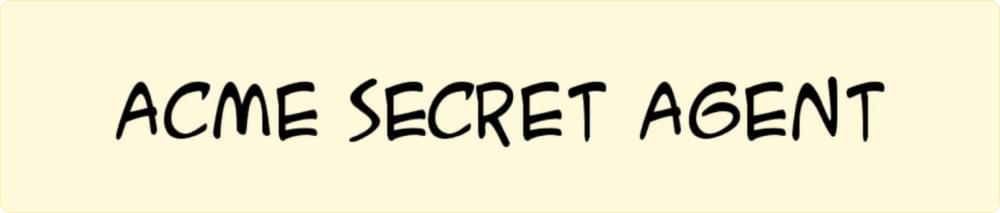
2. Aladin
Aladin is SubtitleBee’s sans font that gives a magical, storybook aura of fantasy anime. It offers soft curves and classic rhythm to your anime text font. The styled letterforms are easy to read and match the every magic of anime story.
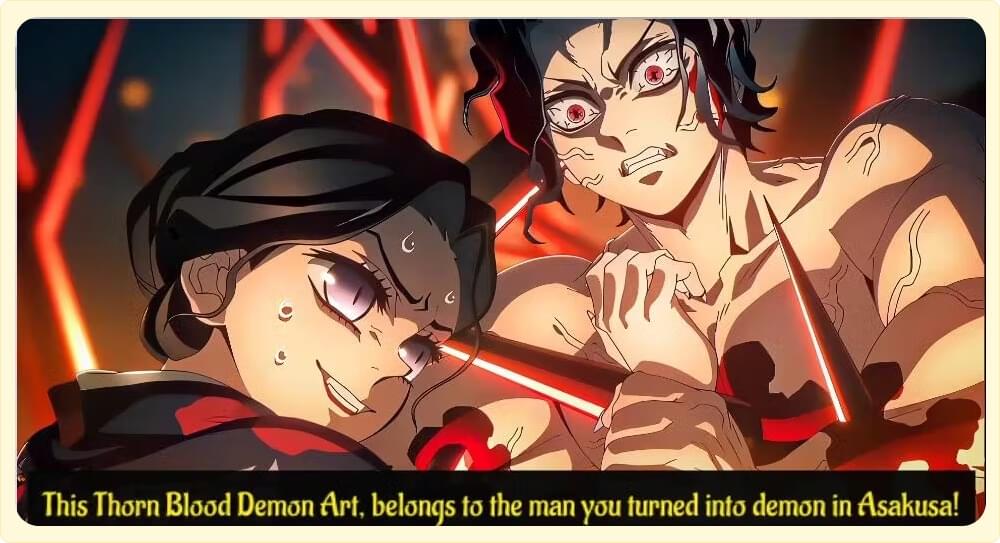
3. Action Man
Action Man is the best anime subtitle font for action scenes and anime titles due to its bold and dynamic look. It has well-spaced letters and is comfortable to read even in longer anime subtitles.
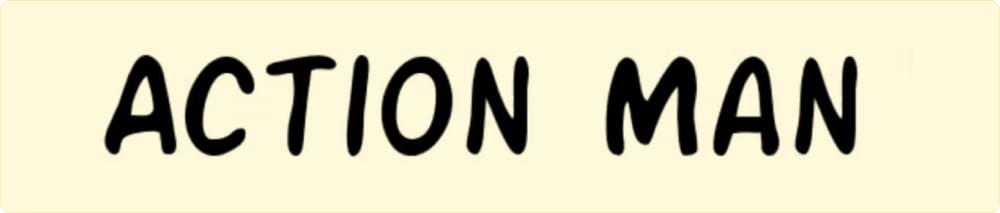
4. Ames
Ames is one of the best anime subtitle fonts out there. It is a clean and comic font with smooth curves and a friendly rhythm that feels right at home in anime subtitles and other texts. It keeps text readable while still adding a subtle hand-drawn charm.
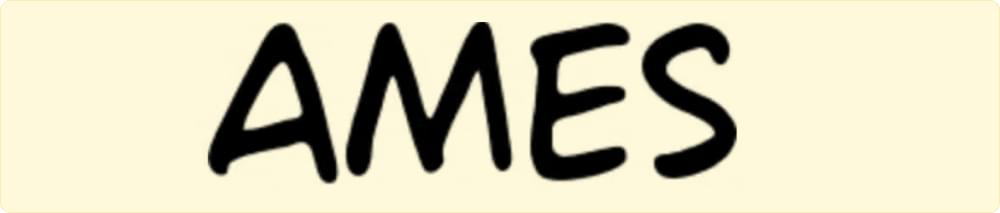
5. Anime Ace
Anime Ace BB is a popular comic-style anime text font widely used in manga and anime subtitles. This is a rounded, clear lettering anime text font that gives dialogue a classic anime look and is also easy to read.
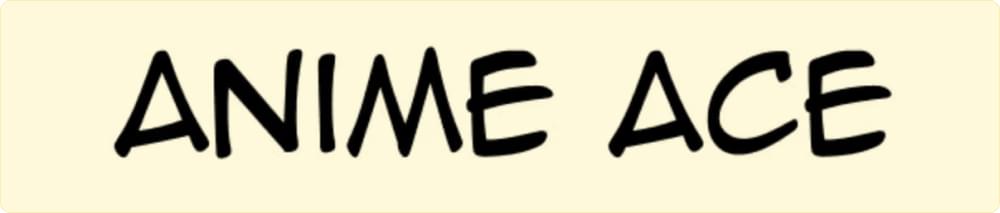
6. Anime Kids
A fun, decorative font with playful characters inspired by classic anime styling. Best used as an anime text font for kids’s anime subtitles and playful titles.
7. Badaboom
Badaboom BB is a very unconventional and fun anime text font and it is best for comedy scenes and fun titles or text. Badaboom typeface has chunky letter that are best for anime titles, pop-up dialogues and short subtitles.
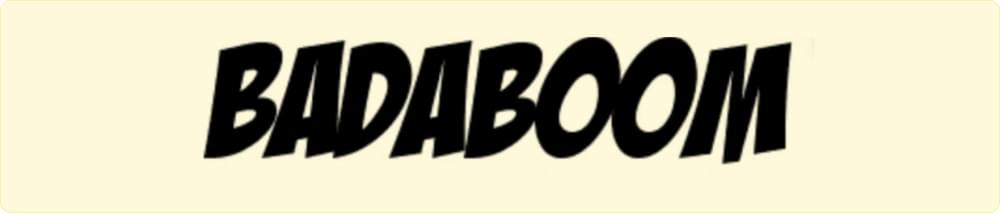
8. Big Shout Bob
Big Shout Bob has very bold and eye-catching letterforms with a fun mix of upper and lowercase characters. This energetic typeface makes anime subtitle text look more playful and helps your video more fun with a lively visual punch.
9. Chubby Dotty Font
A bubbly, rounded font filled with playful dotted accents offers mini versions of capital letters with dots. It brings a cute and cheerful look, perfect for kids’ anime themes, chibi-style edits, or fun title graphics. Best used as an anime subtitle font for short phrases.
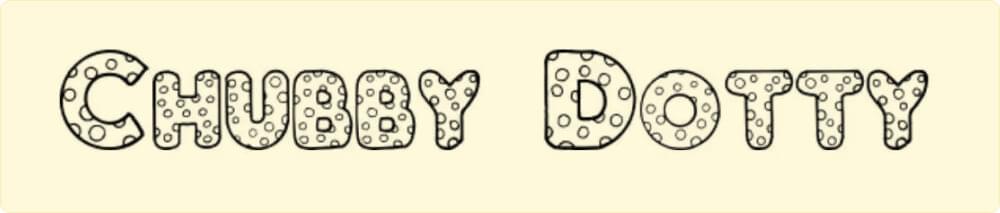
10. Comic Book
Comic Book font is an all-caps, classic anime subtitle font that has been used in comics for years. It is not a very styled font and is easy to read. Its simplicity makes dialogues and narrative text easy to read.
11. Comic Chuck
Comic Chuck is a bold and thick and all-caps font that works well for titles and dialogue. It has a vintage feel, making it suitable for historical or retro-themed webtoons.
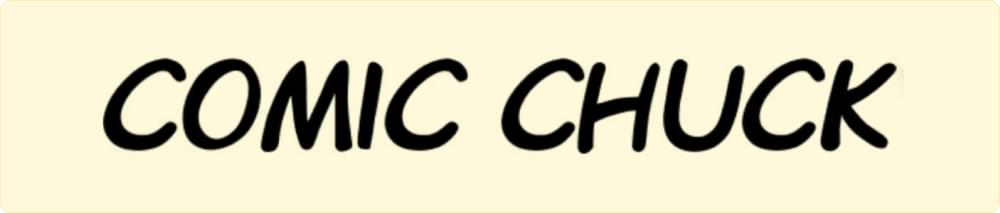
12. Courgette
Courgette is a flowing, semi-cursive san subtitle font. It offers smooth, brush-style curves and a handwritten personality for your anime text. Courgette offers strong readability even at smaller sizes.
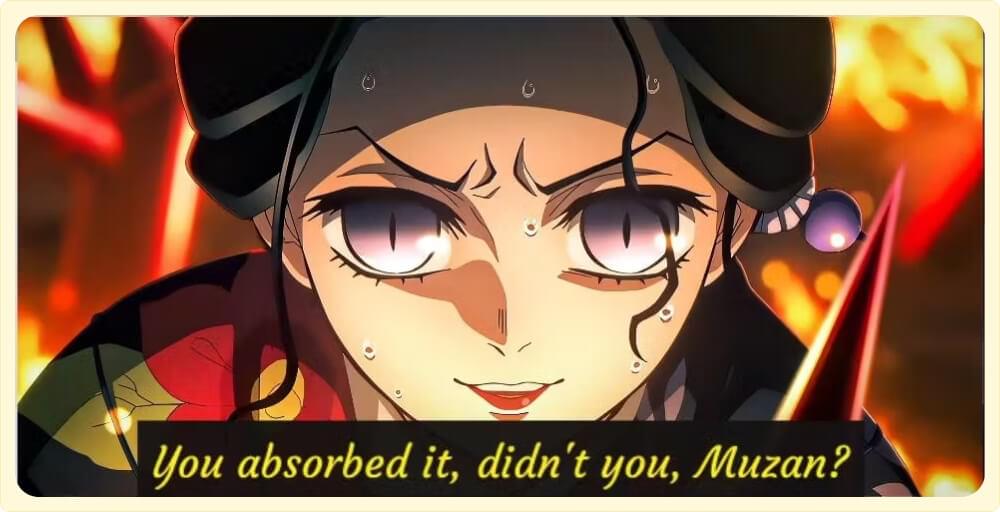
13. Evangelion
Inspired by the classic Anime series, Neon Genisis Evangelion, this anime text font offers big and bold letters that are tightly packed. This condensed look of chunky letterforms can make your titles look much more stylish and unique.
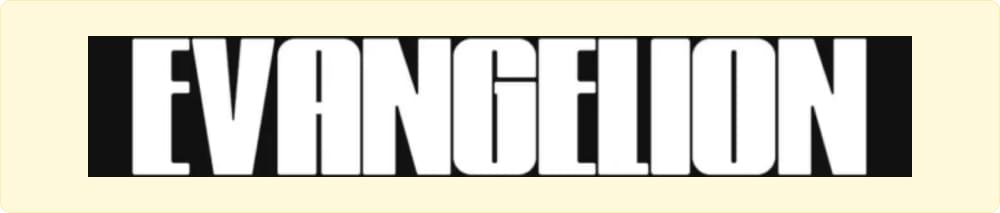
14. Frogy Toons
A playful cartoon-style font with rounded shapes and a bouncy personality. It’s great for kid-friendly anime edits, chibi animations, and cheerful title graphics. It adds a fun and animated feel to your text overlays. Frogy Toons is best used as an anime text font rather than subtitles, since its chunky style can make long dialogue harder to read.
15. Funicorn
Funicorn is a whimsical anime text font with quirky curves and a lighthearted feel. Its has a playful style that makes it perfect for cute anime pop-up texts, and fantasy-themed title cards. It is not ideal as an anime subtitle font because the decorative shapes can reduce readability during fast scenes and is best for all short texts.
16. Giman Gimun
Giman Gimun is a manga-style font but is a favourite for anime titles and intro designs. It features chunky bold condensed letterforms and is an ideal anime text font for anime character names, punctuations, symbols or numbers. Not ideal for subtitling of longer dialogues though.
- Ravi Prakash
What is JJK font?
The JJK font is inspired by the dark, edgy style seen in Jujutsu Kaisen. It has sharp strokes and reflects the show’s intense supernatural theme. This font works well for anime titles, character introductions, and cursed energy effects, but it’s not ideal for standard subtitles because the dramatic letter shapes can reduce readability.